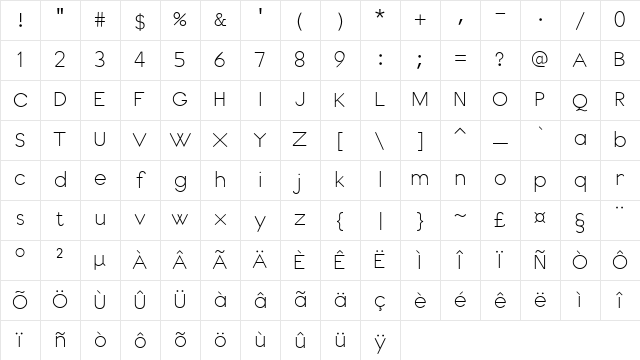
Hoppy Regular Free Font
Hoppy Regular
Hoppy Family
Design Context for Hoppy
Hoppy is a composed and adaptable typeface that performs quietly and consistently across a wide range of design contexts.